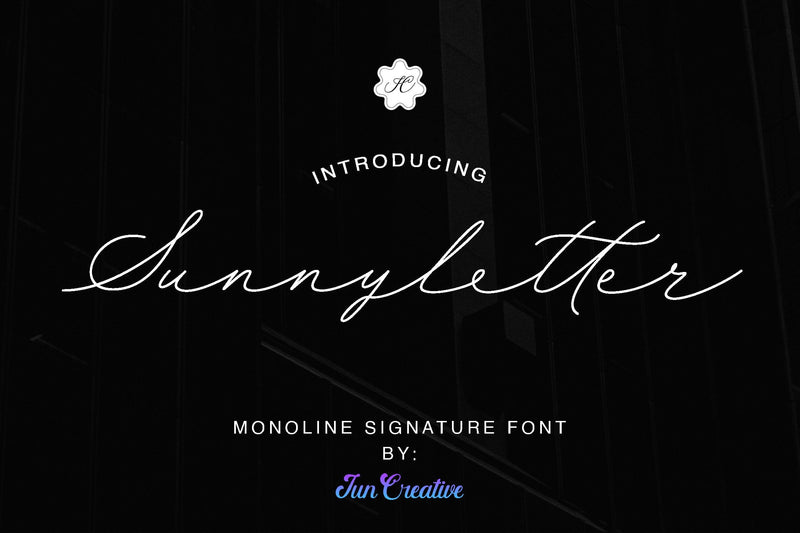
Sunnyletter Font
Sunnyletter is a beautiful light handwritten fountain with a unique sense and a stunning impact. It'll add a luxury spark to any design design that you wish to produce! This fountain is PUA decoded which means you can pierce all of the amazing characters and ligatures with ease!